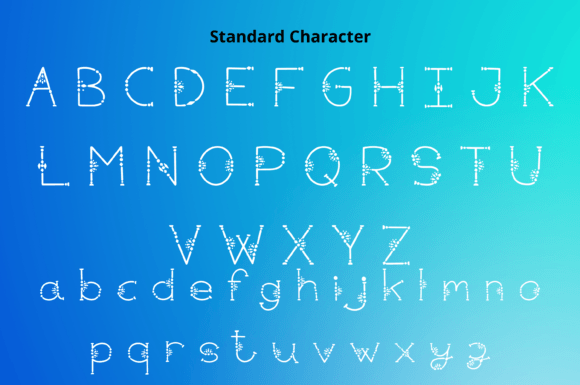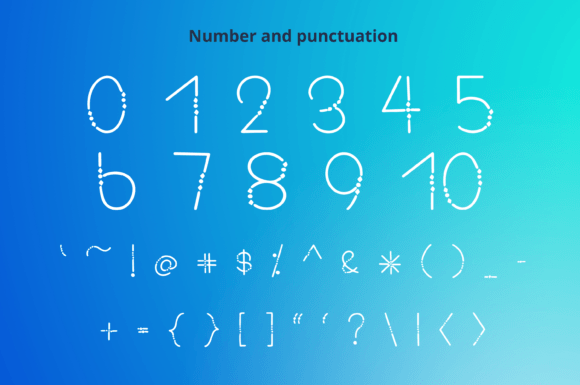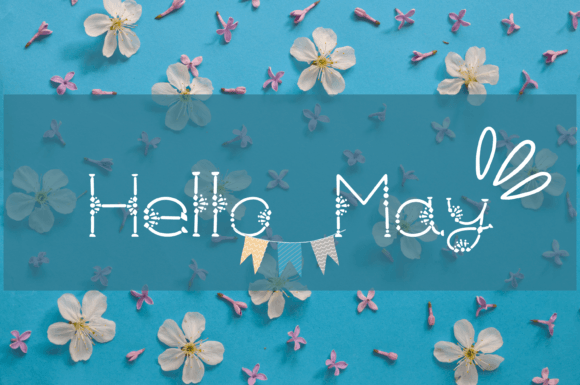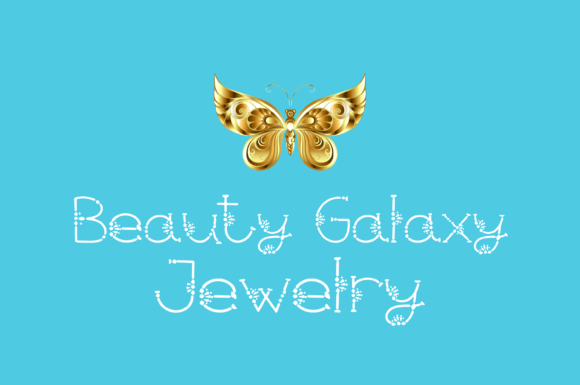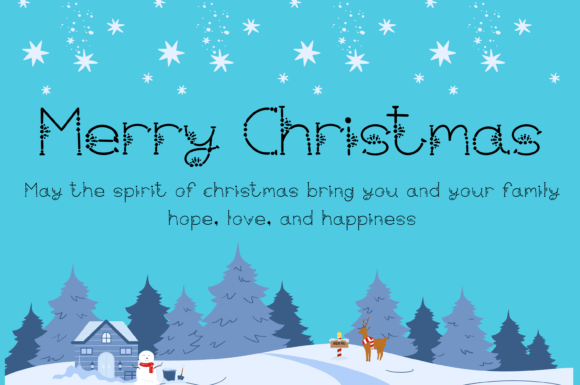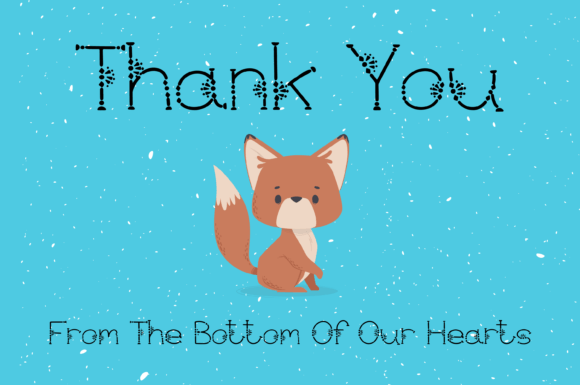
The Perfect Touch: Unlocking Creativity with Grand Jewel Font
Have you ever stared at a blank canvas, feeling stuck and unsure of how to bring your vision to life? I know I have. It’s in those moments that I turn to the tools that help me tap into my creative side. For designers, the right font can be the difference between a project that’s just good and one that’s truly great.
Enter the Grand Jewel Font, a whimsical and cute decorative font that’s perfect for adding a touch of personality to your designs. Whether you’re creating a logo, a poster, or a social media graphic, this font is sure to make your project stand out. Its versatility and charm make it a valuable asset for designers looking to add a unique flair to their work.
With the Grand Jewel Font, the possibilities are endless. From children’s books to wedding invitations, this font is the perfect addition to your creative arsenal. So why not give it a try and see how it can elevate your designs to the next level?
Grand Jewel Font Key Features
- Font Family: Grand Jewel, a luxury-inspired sans-serif font
- Unique Characteristics: Features a unique blend of modern and classic elements, with subtle luxury cues and refined lines
Grand Jewel Font Review
Overall, I think the Grand Jewel Font has some great qualities that make it a good choice for certain projects. Here are some of the things that work well: ✨
- Unique aesthetic: The font has a distinctive, luxurious feel that could add a touch of elegance to high-end branding or marketing materials.
- Wide character set: The font includes a wide range of characters, including accented letters and special symbols, making it suitable for use in many different languages.
- High-quality vectors: The font’s vectors are well-designed and crisp, making it suitable for use in high-resolution applications.
However, there are also some limitations to consider: ⚠️
- Difficulty with small text: The font’s intricate details can make it difficult to read at small sizes, which may limit its use in certain contexts.
- Lack of flexibility: The font’s design is quite rigid, which may make it difficult to customize or modify for specific projects.
- Not suitable for body text: Due to its ornate nature, the font may not be the best choice for body text or long blocks of text.
Overall, I think the Grand Jewel Font is a great choice for projects that require a touch of luxury and elegance, but it may not be the best fit for every project. With some careful consideration of its limitations, it could be a valuable addition to your design toolkit.
Use the Grand Jewel Font to add a touch of luxury and sophistication to your designs.
Pair the font with bold, eye-catching colors to create a striking visual effect.
Experiment with different font sizes and styles to create a unique and engaging design.
High-end marketing materials
Special occasion announcements